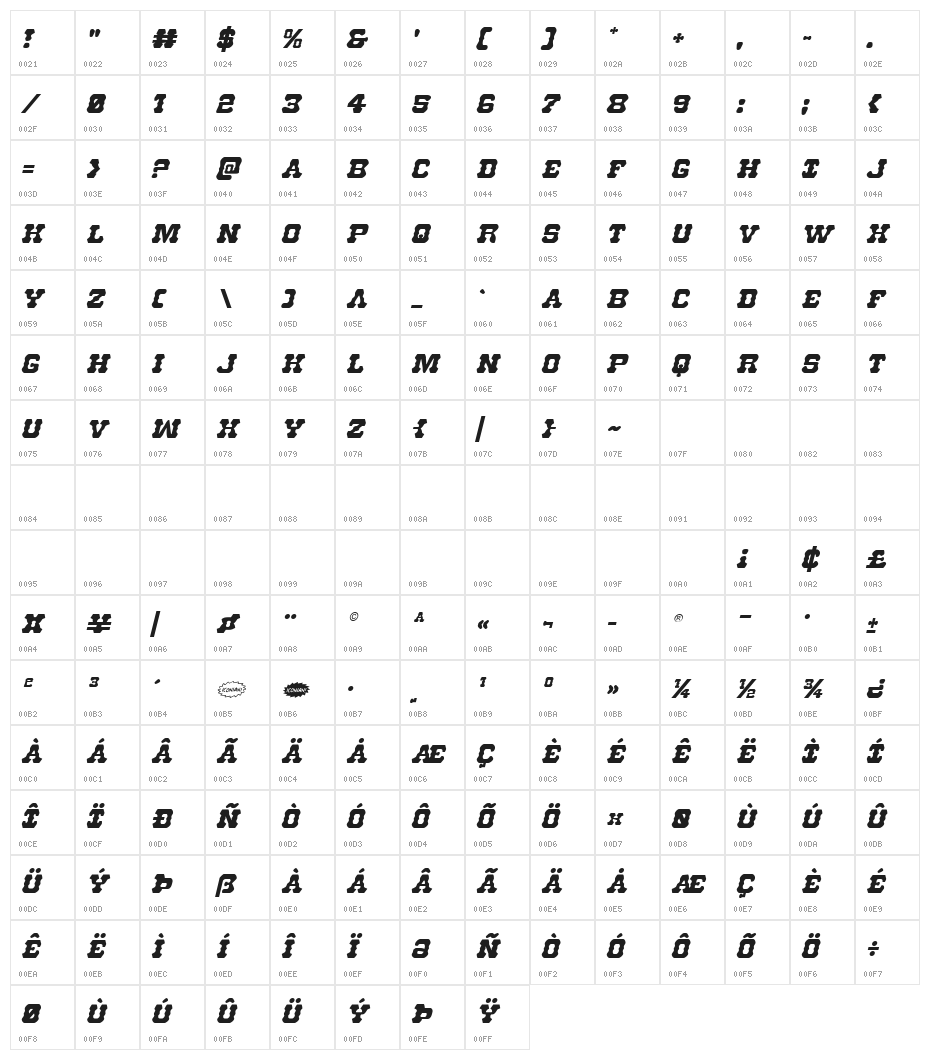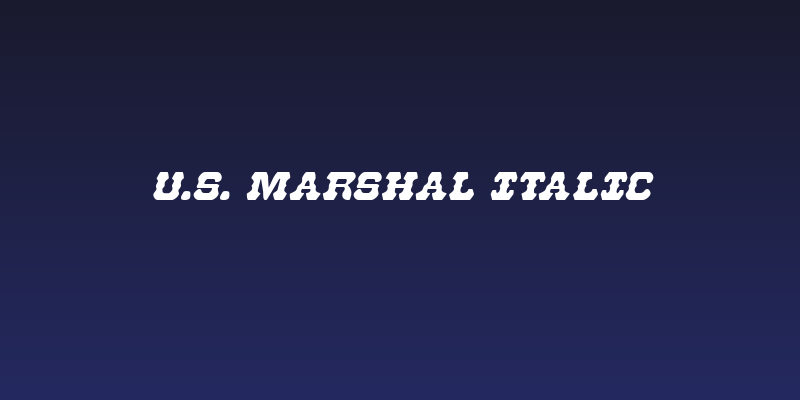
U.S. Marshal Italic Font
U.S. Marshal Italic Description
This font features a bold, italicized style with a strong, impactful presence. The characters are designed with thick strokes and a slight slant, giving them a dynamic and energetic look. The boldness of the letters is complemented by subtle curves and sharp edges, creating a sense of movement and urgency. The font maintains a consistent weight throughout, ensuring readability while still making a statement. The spacing between characters is tight, enhancing the compact and cohesive appearance. This font is ideal for projects that require a bold and attention-grabbing typeface.